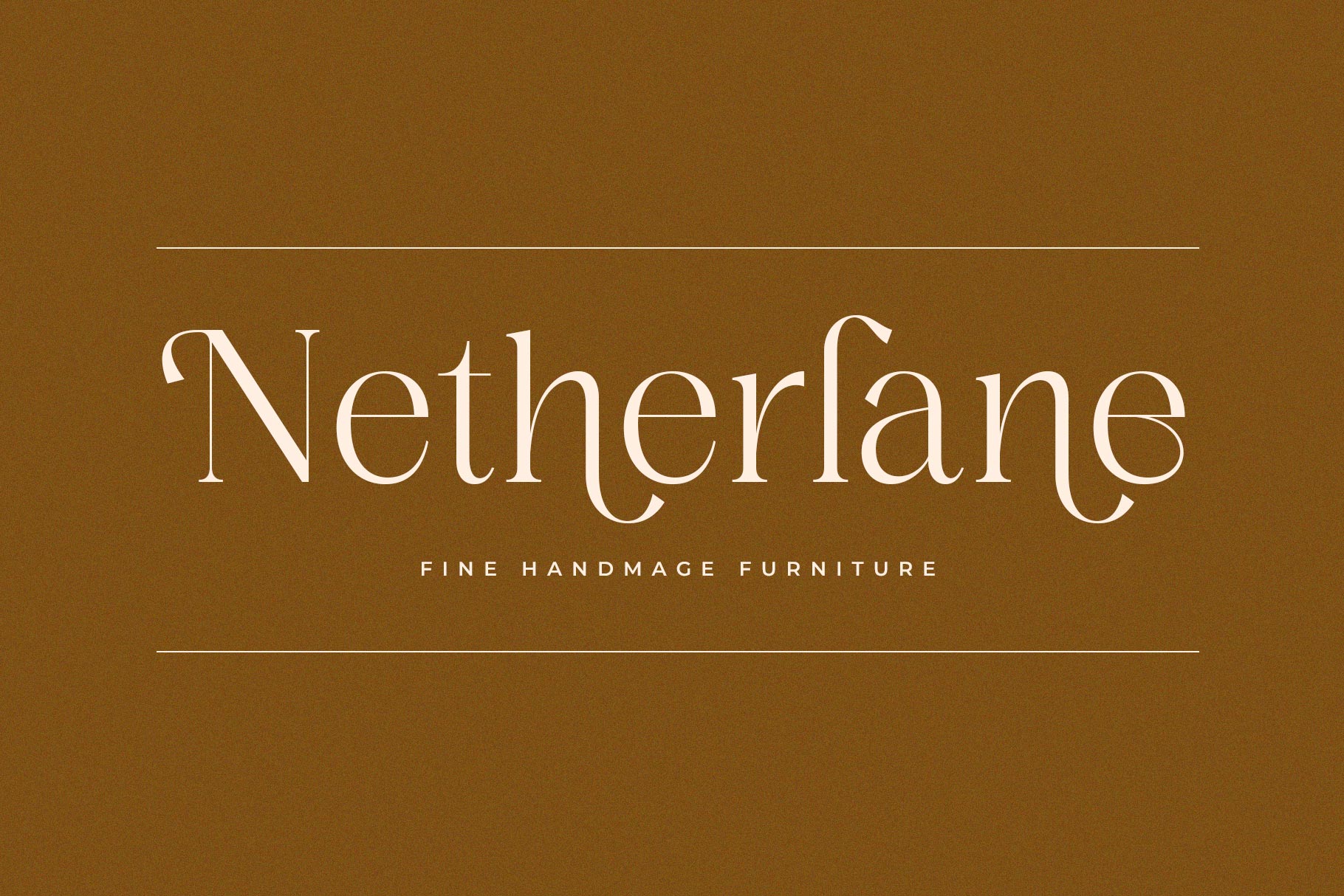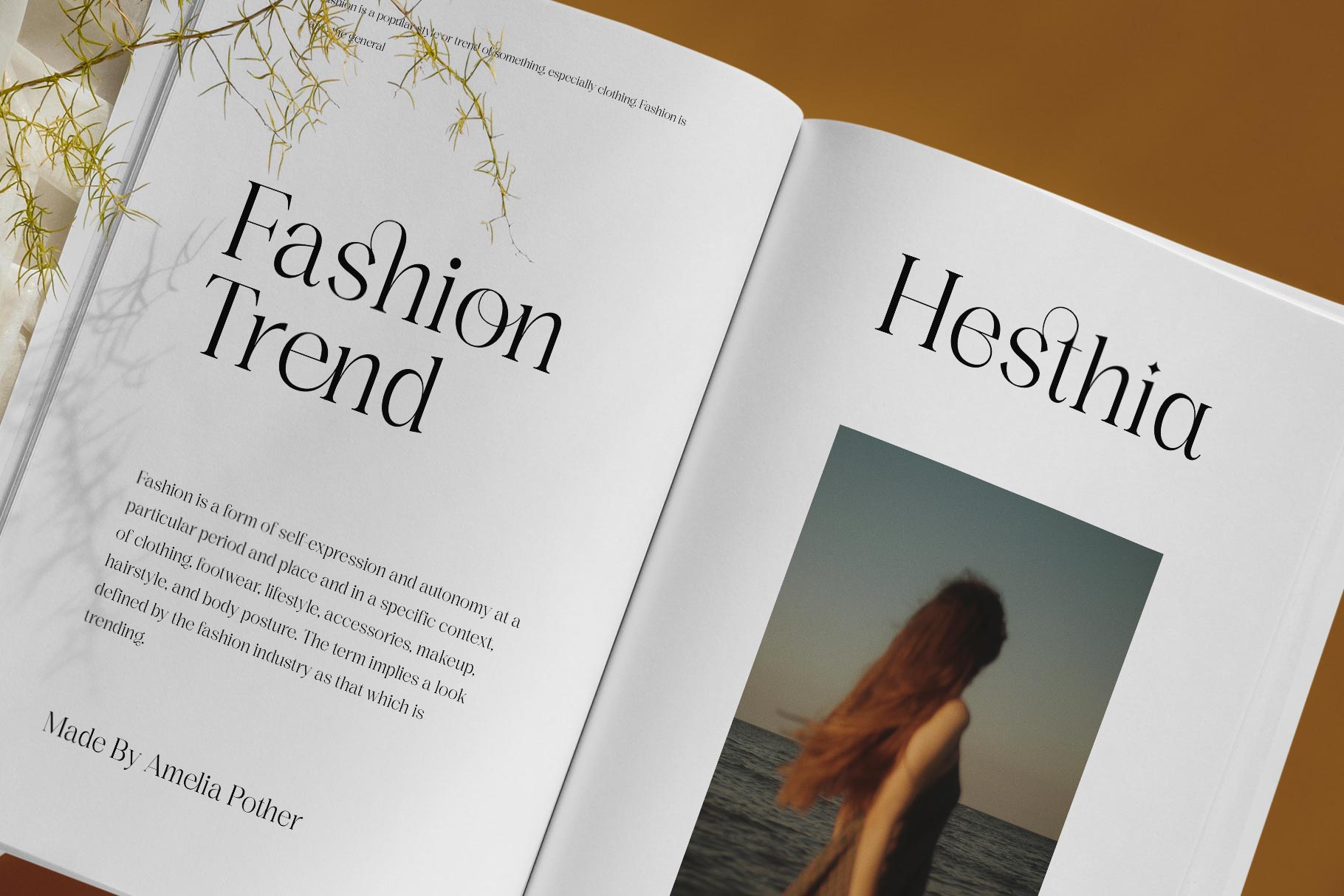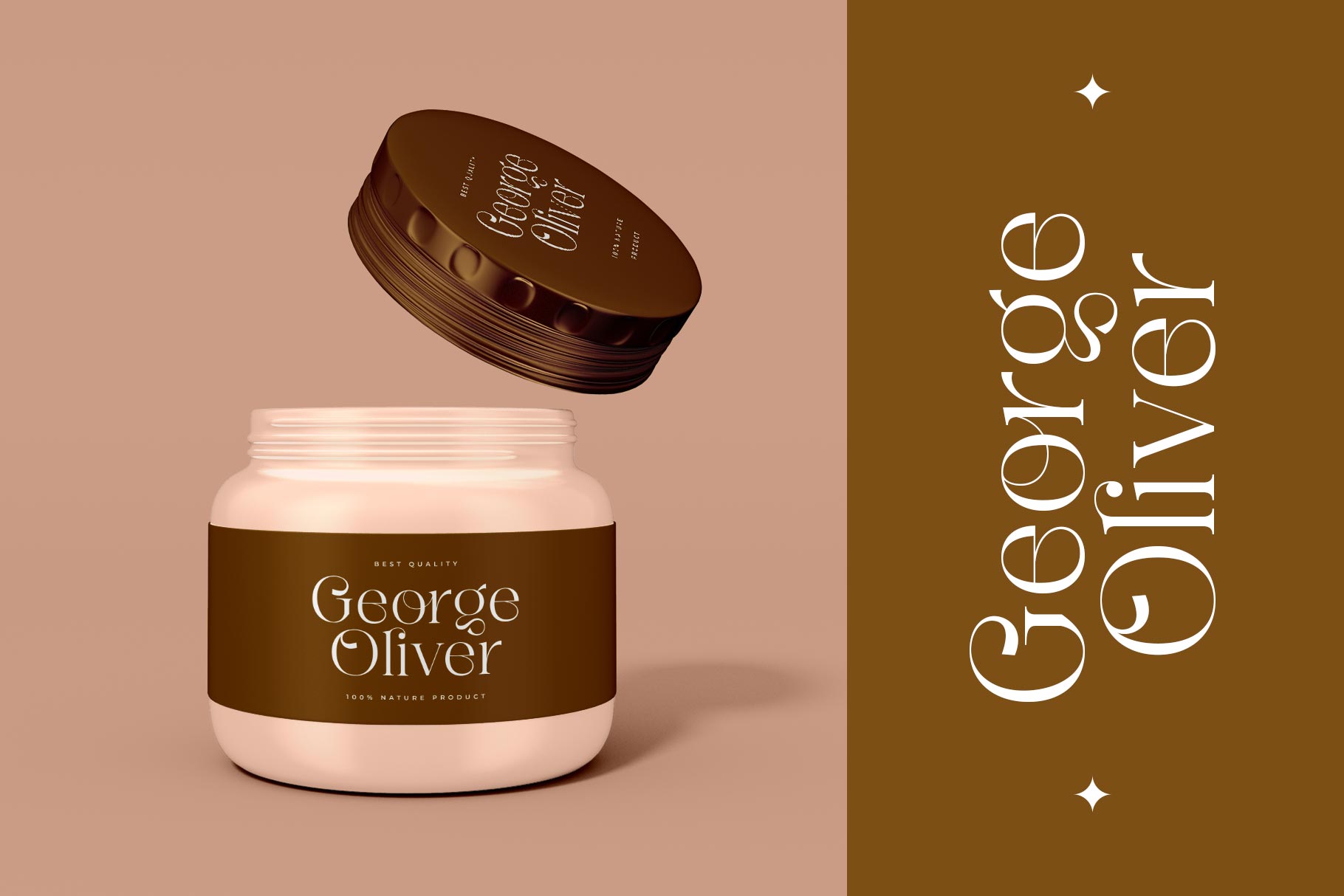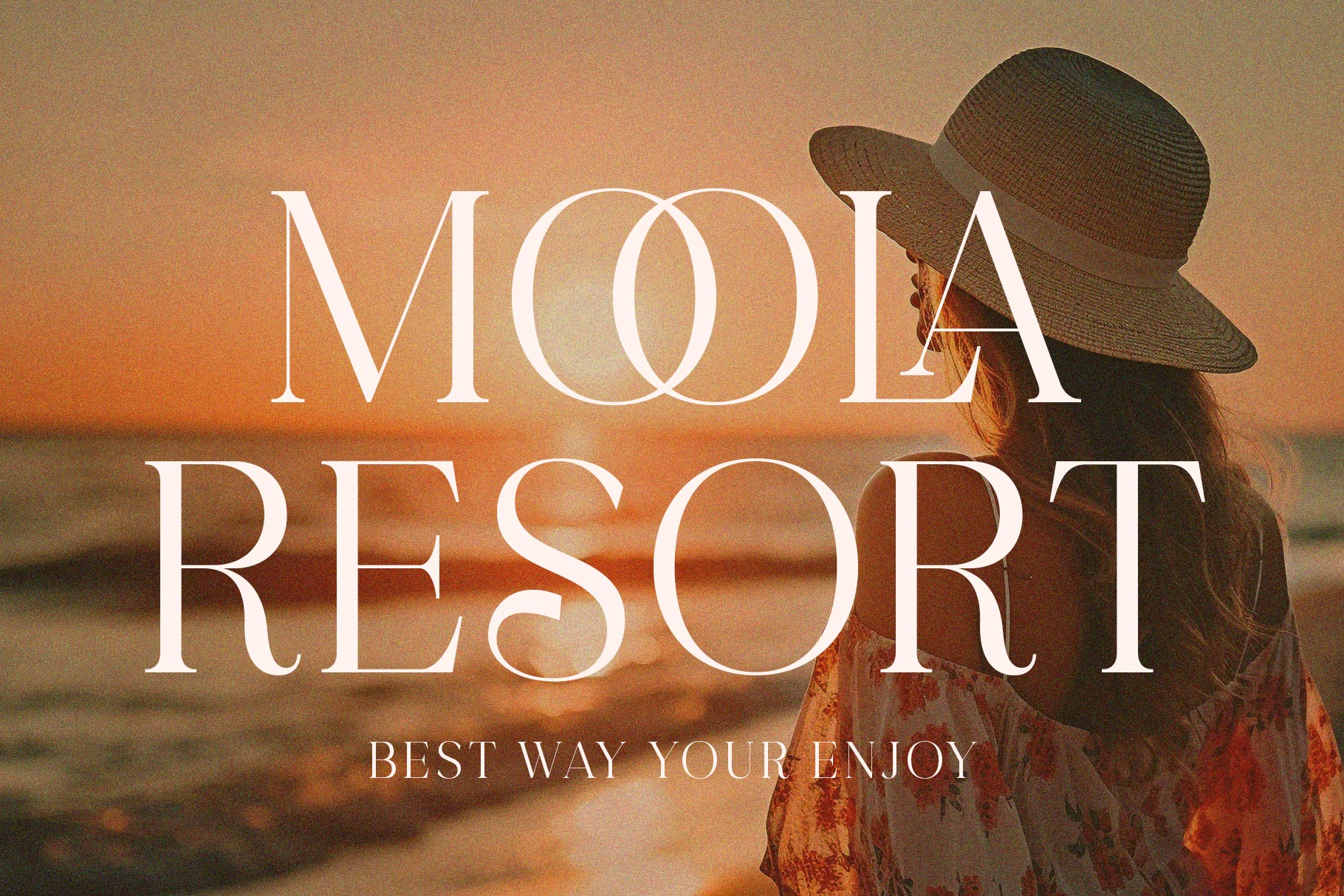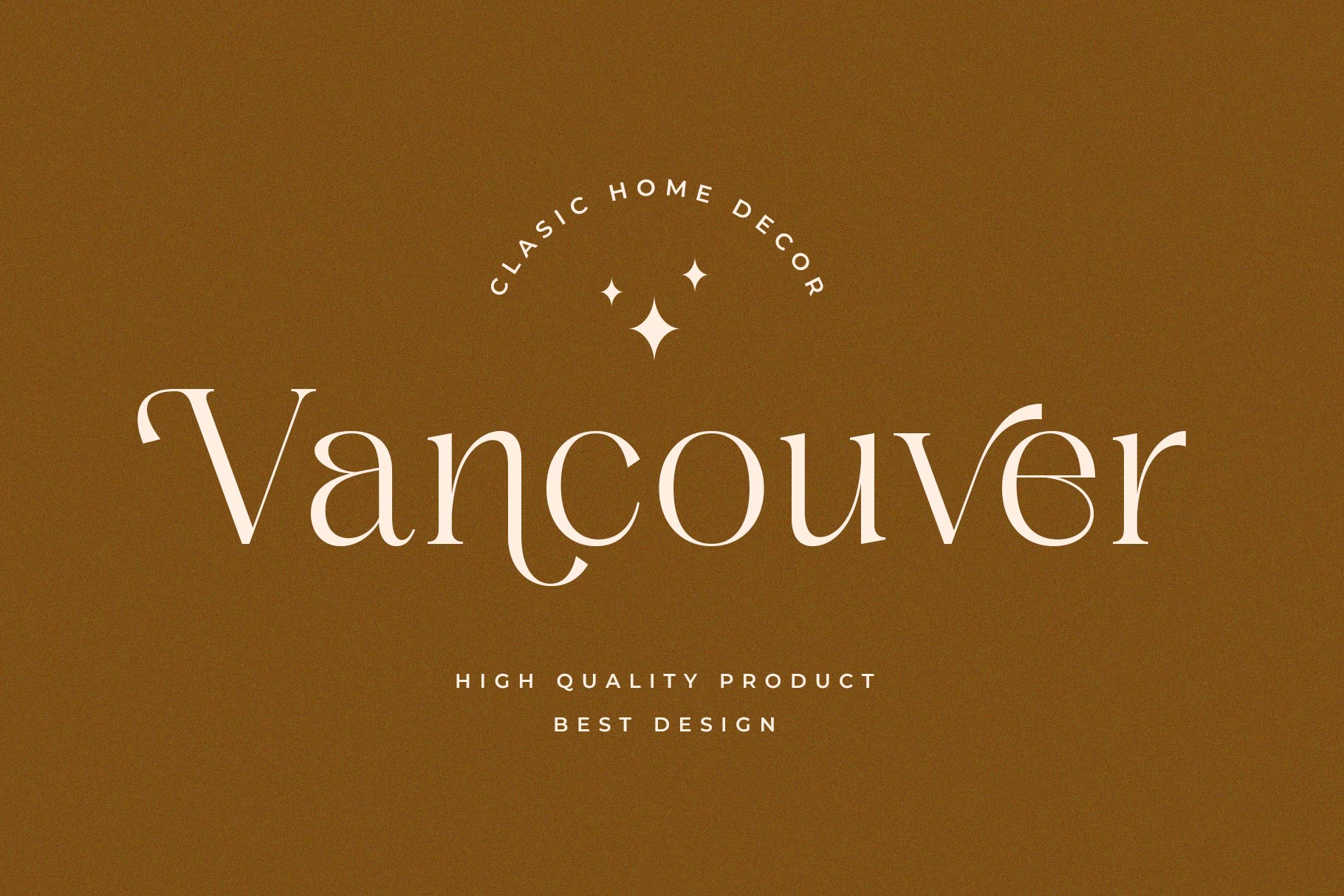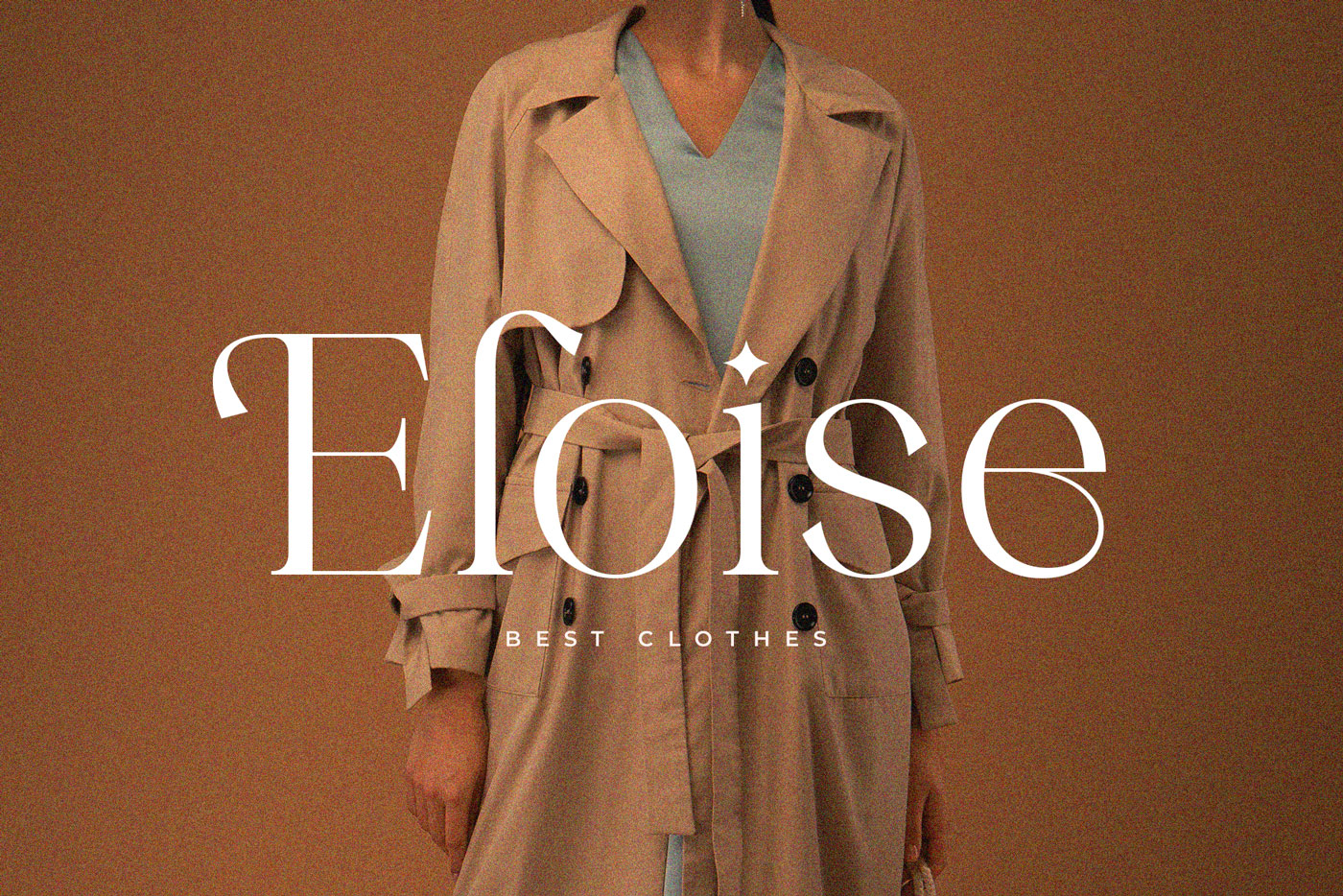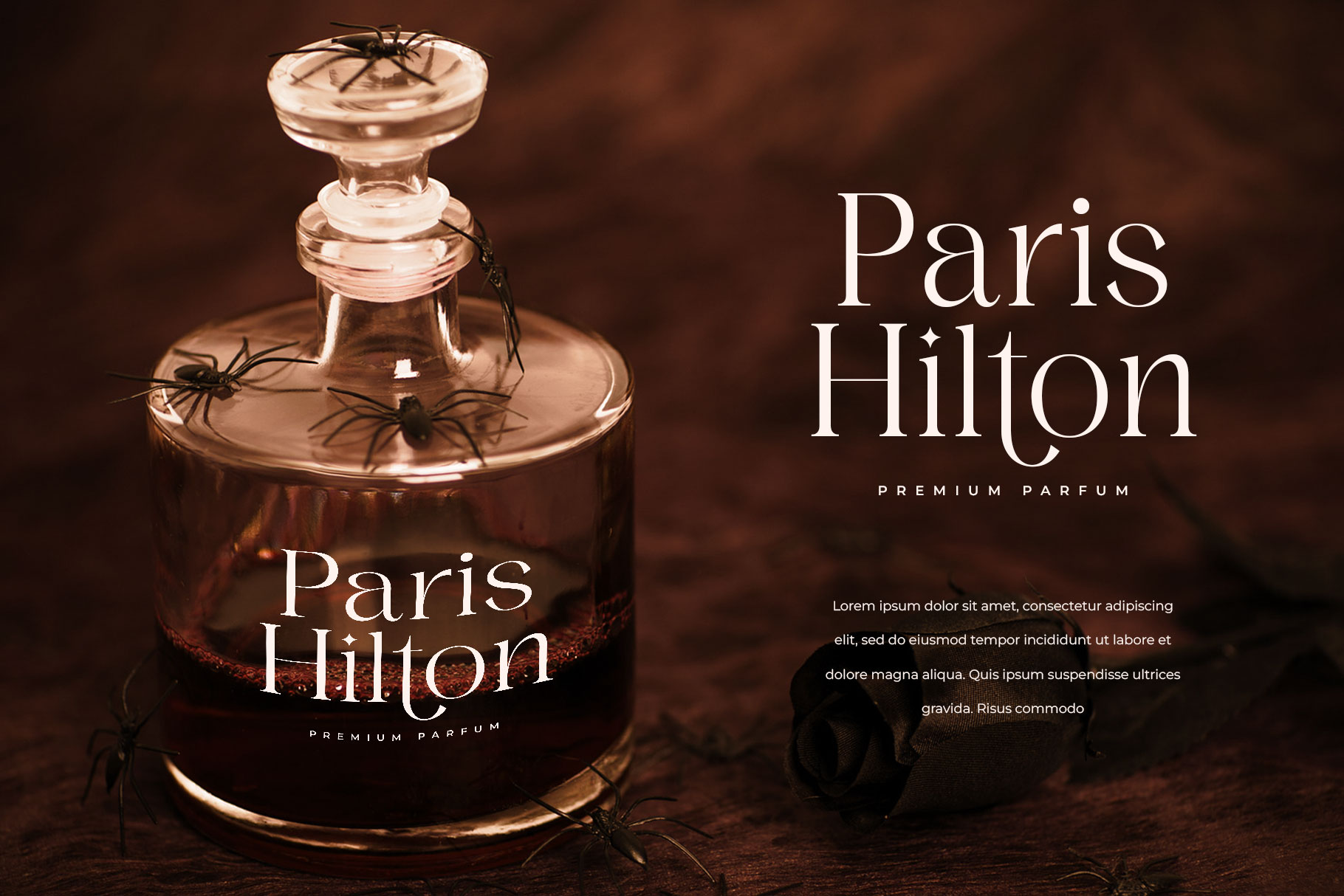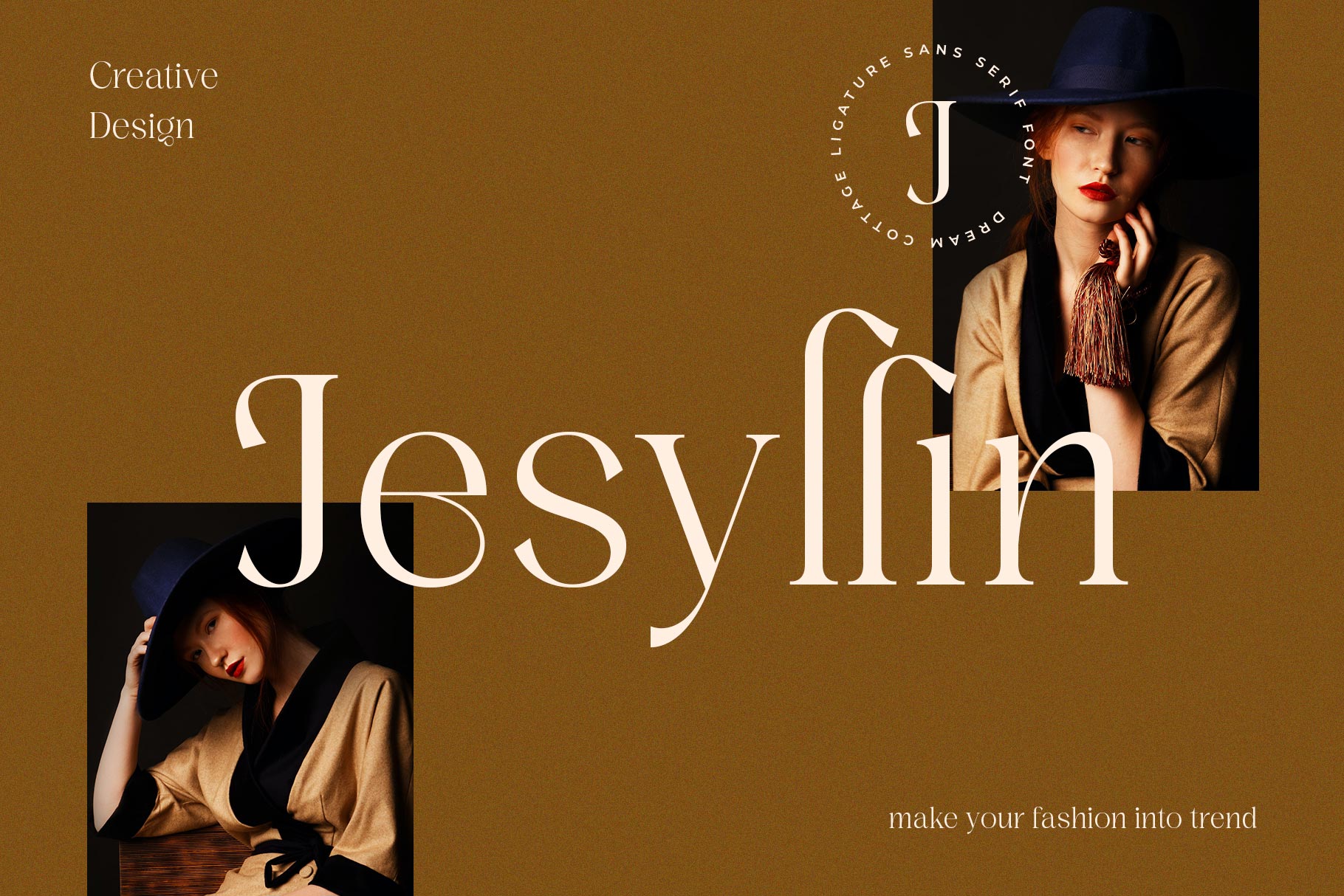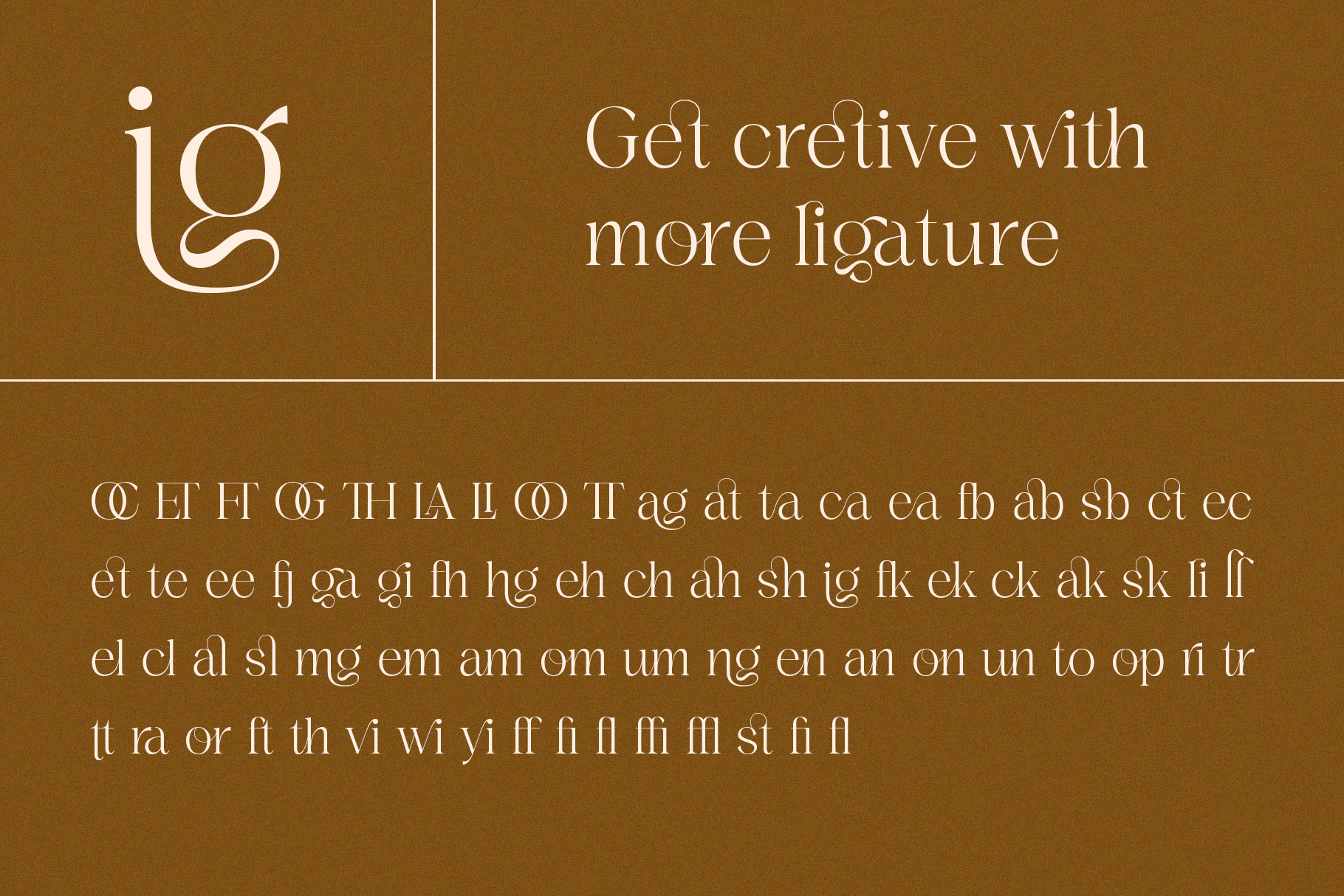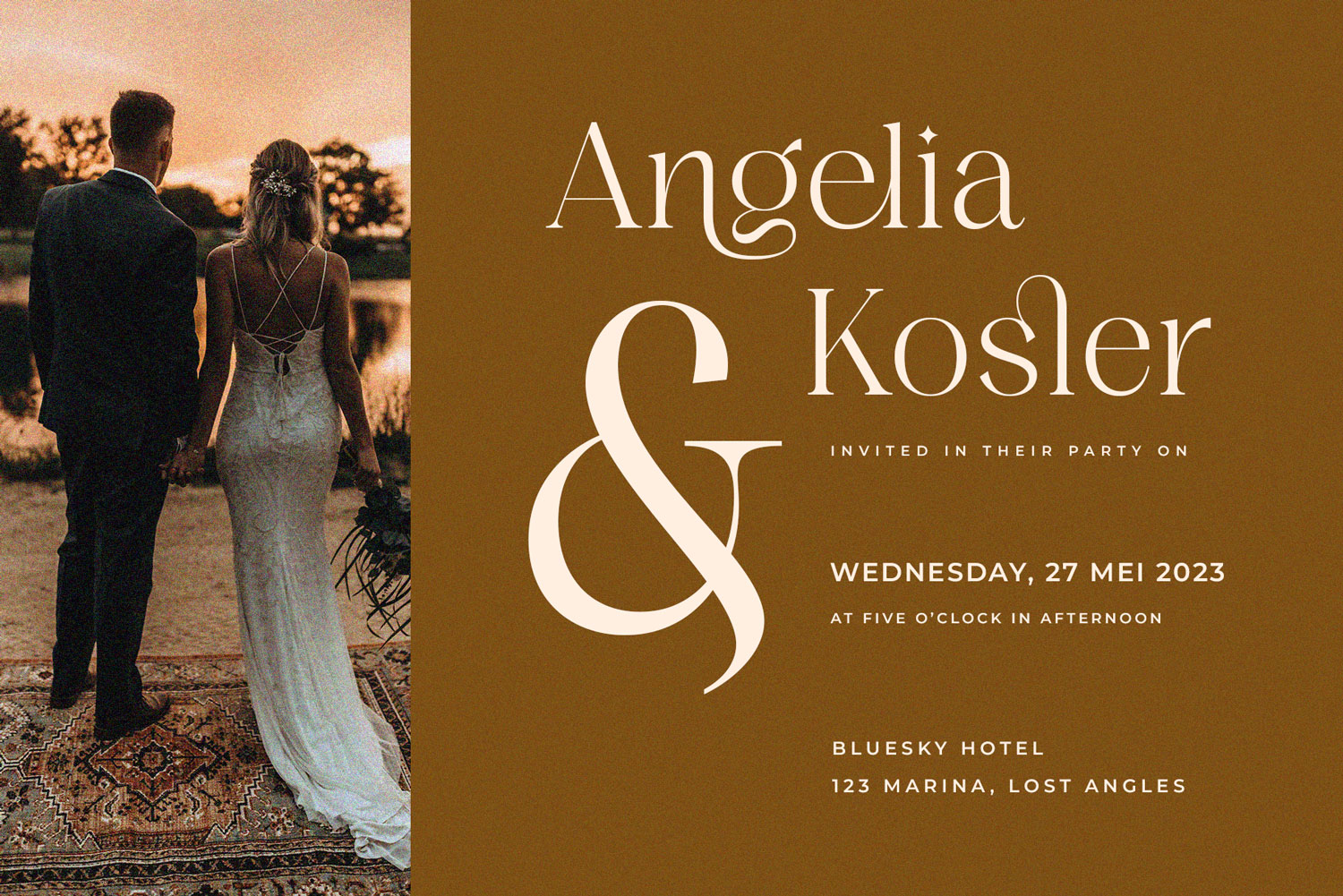
Dream Cottage Modern Ligature Serif Font
Dream Cottage- a chic & elegant display modern serif with beautiful contrast and have unique ligature for optional. Specially designed for fashion-themed projects, perfectly suitable for creating elegant, chic, lifestyle design such as logos, title, and magazine, and more. Now you have more choice when using Dream Cottage for typography.
Dream CottageĀ  – I’ve also love combination the reguler and italic make cool and nostalgic.